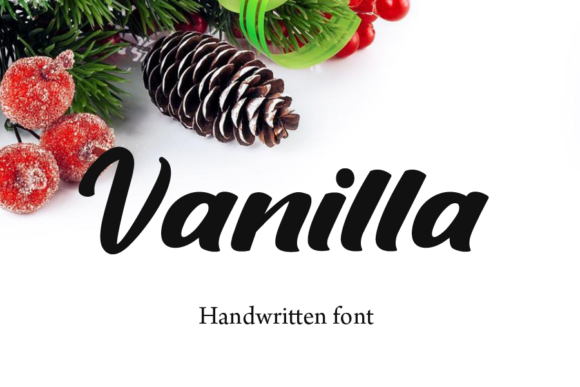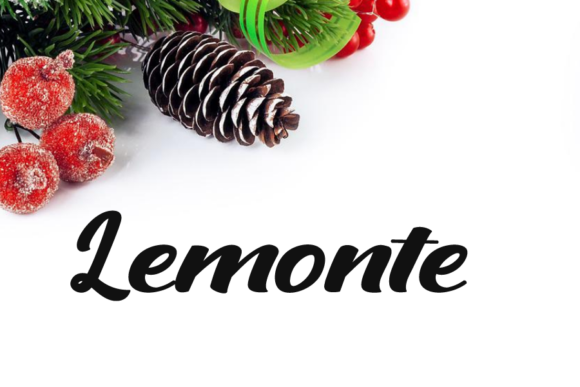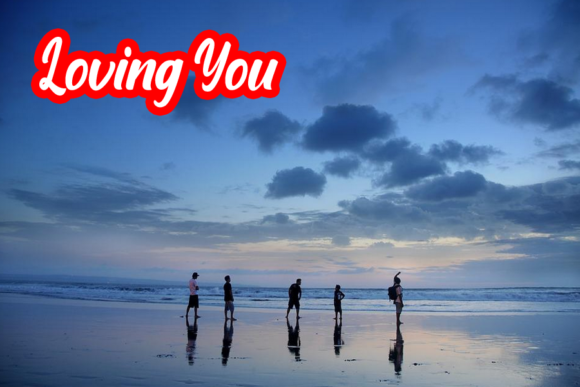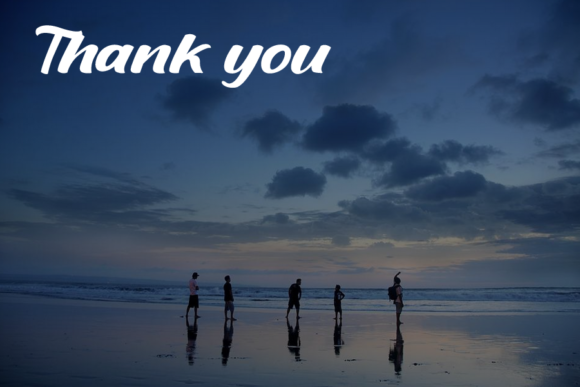
Vanilla Font
About Vanilla Font
Vanilla is an enchanting handwritten font that brings a touch of magic to your projects. This versatile script font offers a wide spectrum of applications, making it suitable for everything from greeting cards to headlines. With its charming and romantic feel, Vanilla is guaranteed to add a delightful and whimsical touch to your next creative endeavor.
The enchanting nature of Vanilla makes it particularly well-suited for a variety of applications where a touch of magic is desired. Whether used in greeting cards, invitations, or any project that requires a romantic and whimsical aesthetic, this font adds a special and captivating element.
In headlines and titles, Vanilla’s handwritten charm stands out, creating a visually appealing and distinctive look. The font’s versatility allows it to adapt to different themes, enhancing the overall impact of your headlines with its enchanting and romantic feel.
The wide spectrum of applications for Vanilla extends to various creative projects, including branding, social media posts, and more. Its whimsical and charming script brings a sense of uniqueness and character to your designs, making them stand out in a delightful way.
In summary, Vanilla is more than just a font; it’s an enchanting handwritten design tool that adds a touch of magic and romance to your creative projects. Whether applied to greeting cards, headlines, branding, or various other applications, Vanilla is guaranteed to infuse your designs with a delightful and whimsical atmosphere.